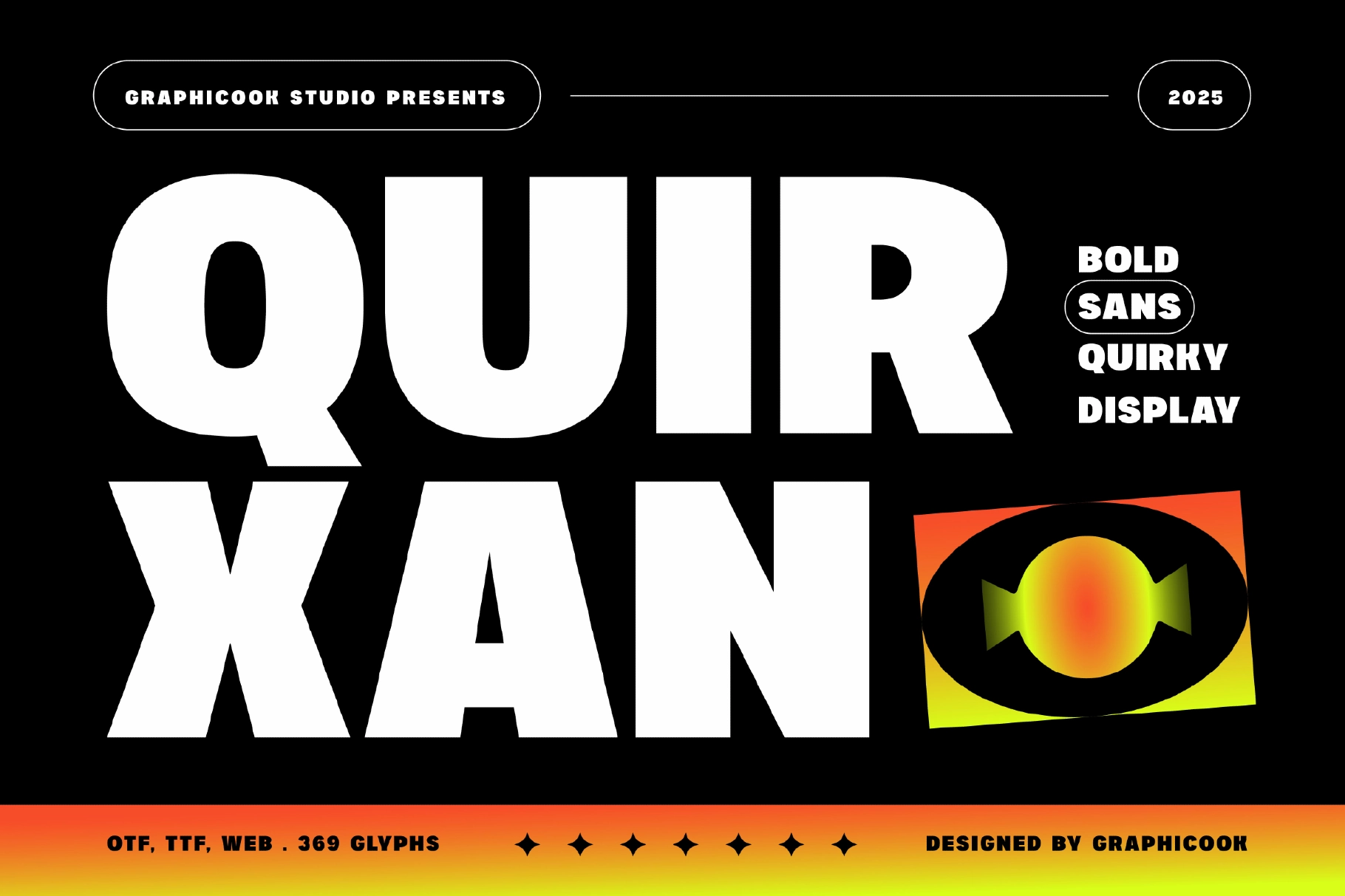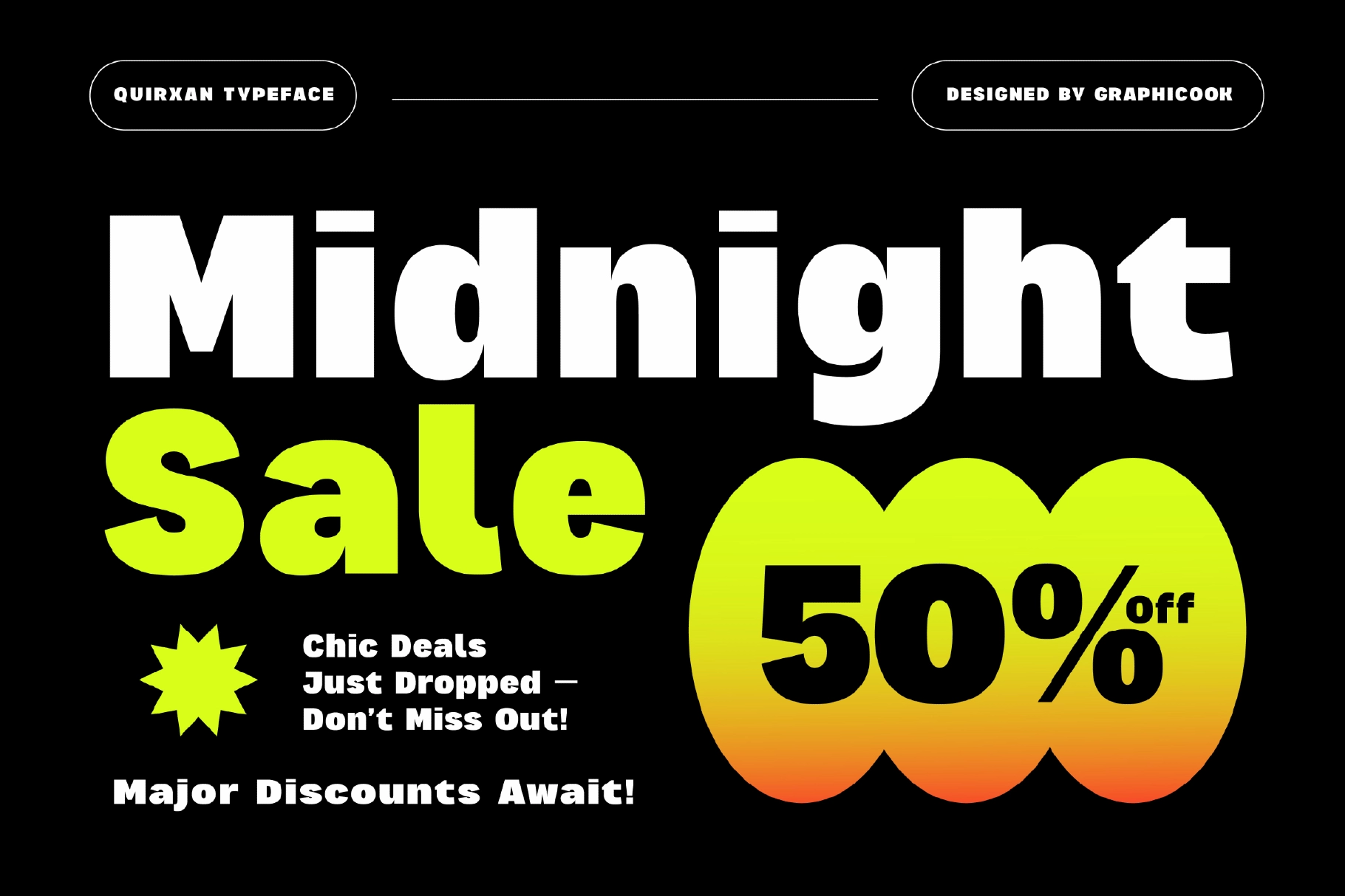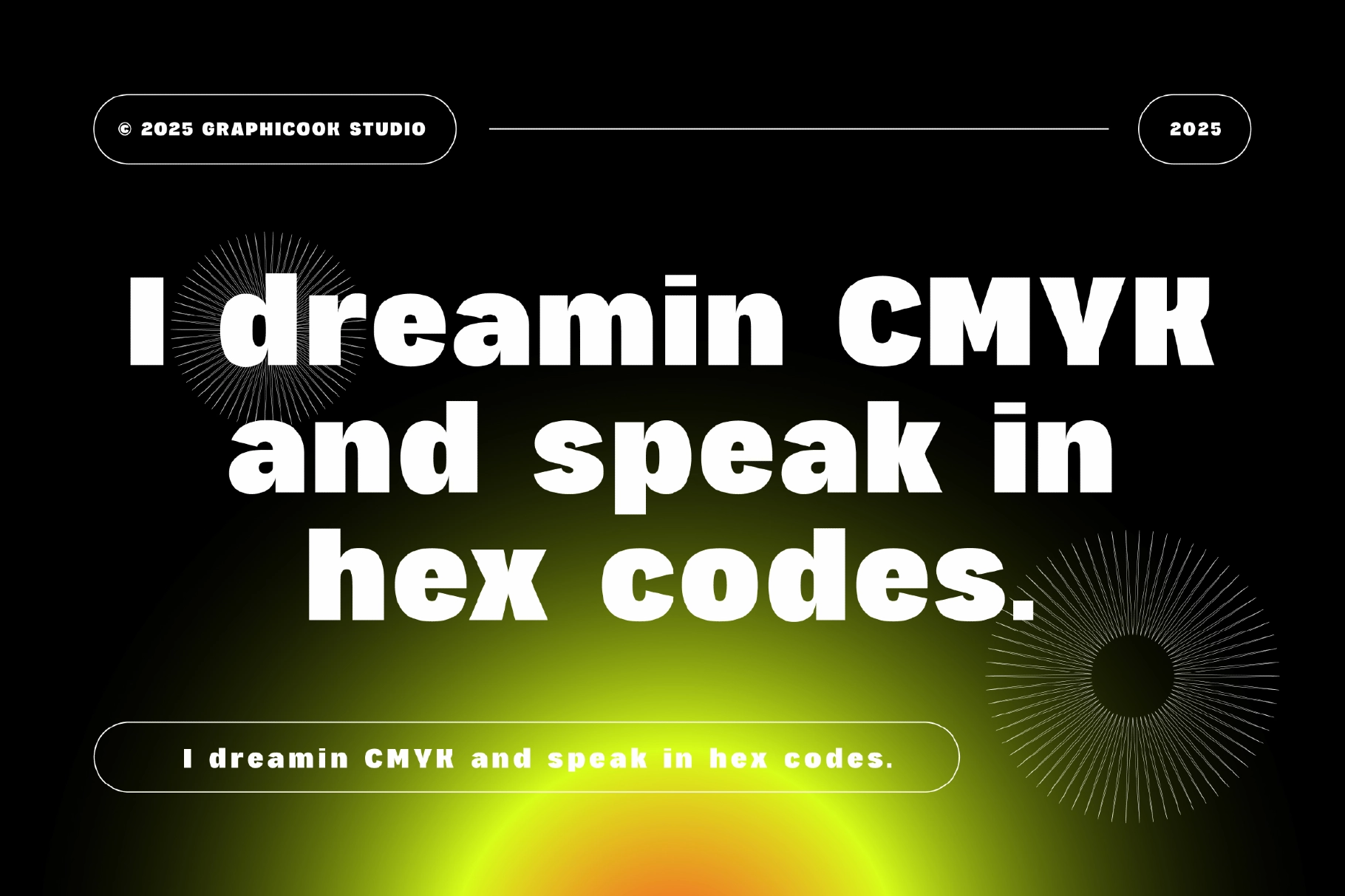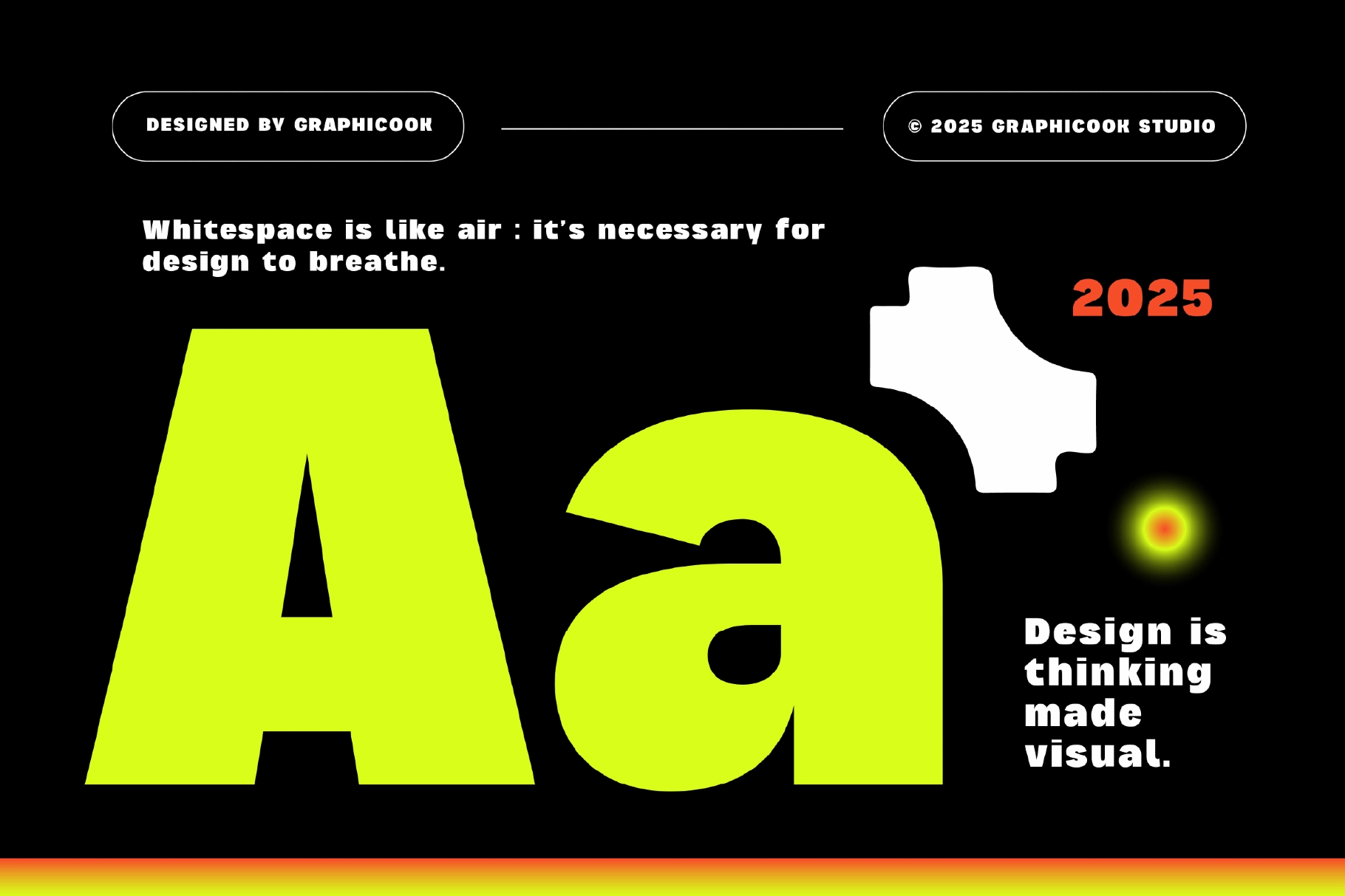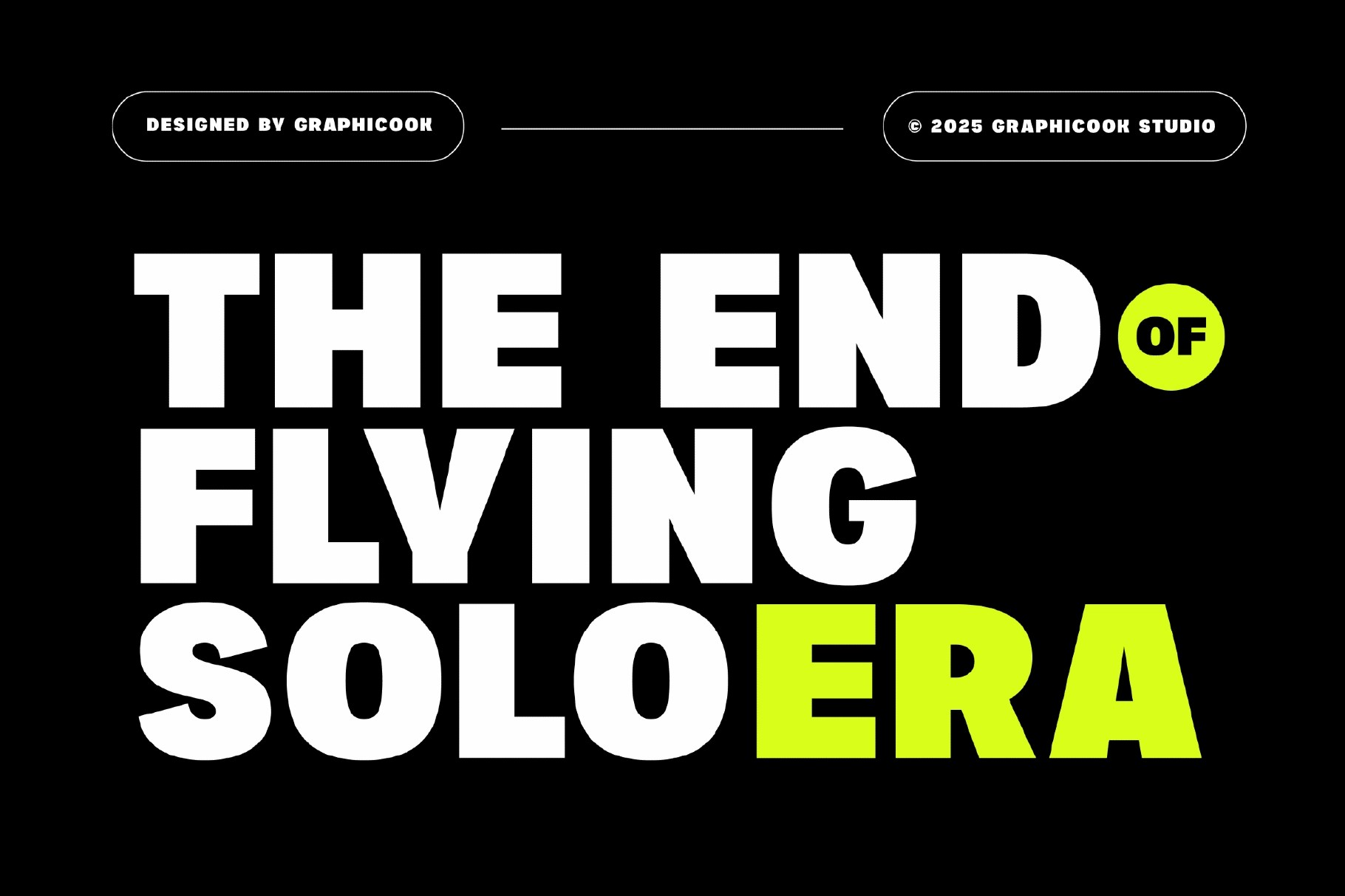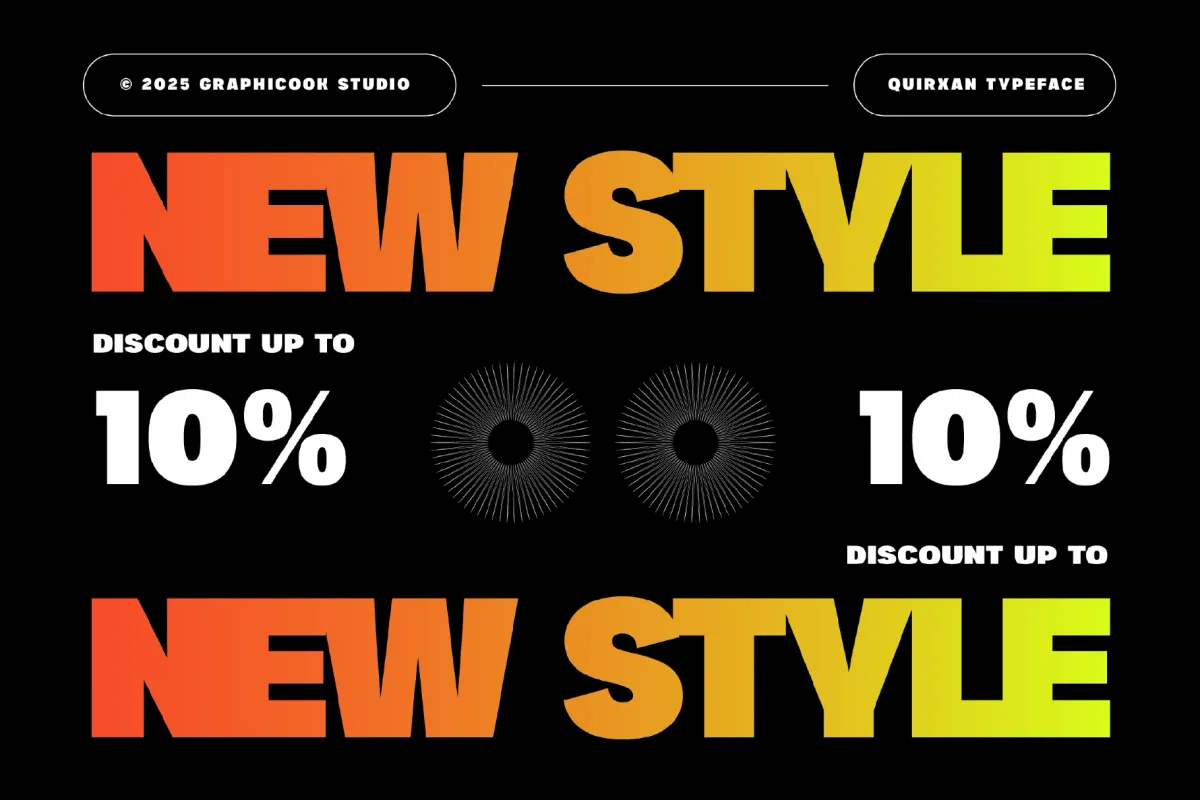
Quirxan Font
Quirxan
Quirxan is a bold sans-serif font with uniquely wide letterforms that create a strong visual impact. Great for headlines, logos, book covers, and social media content.